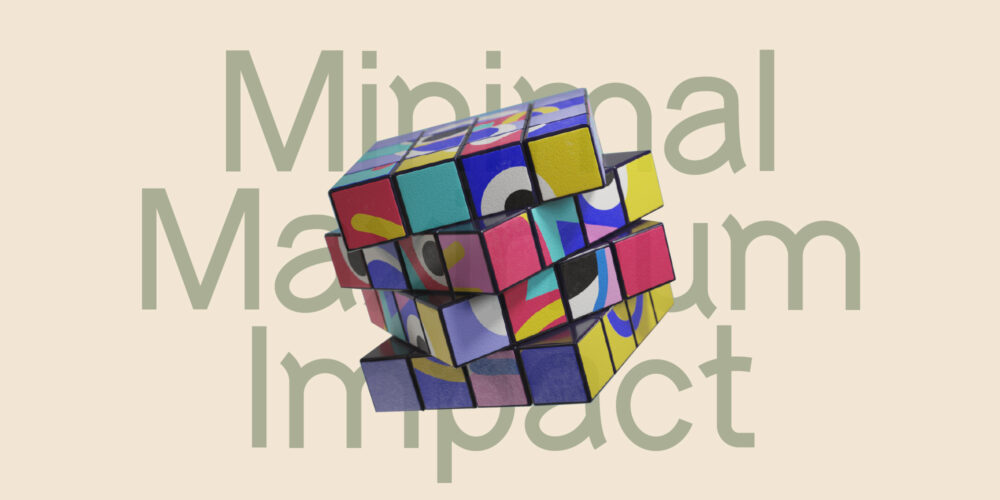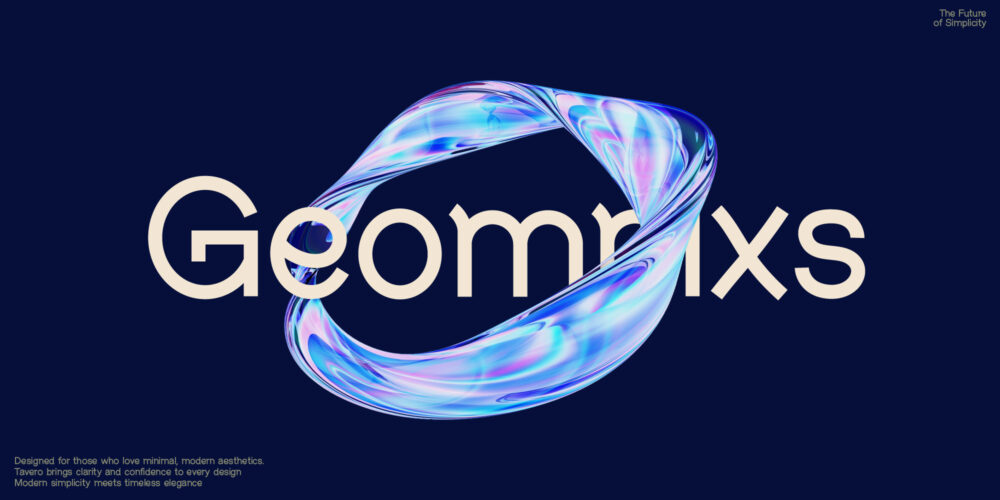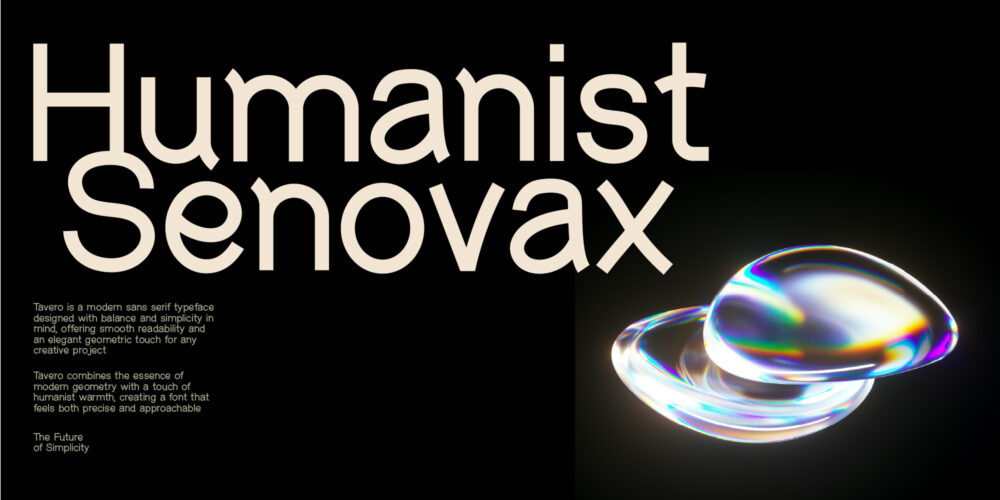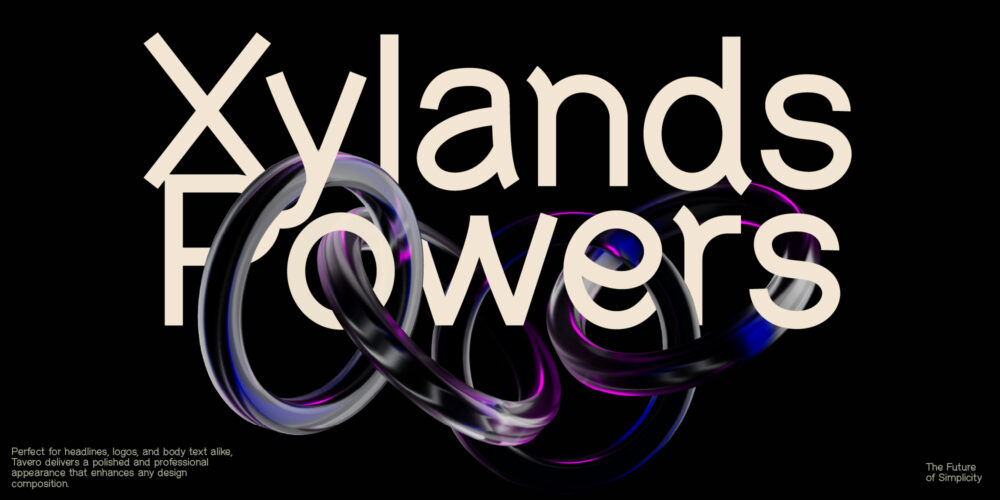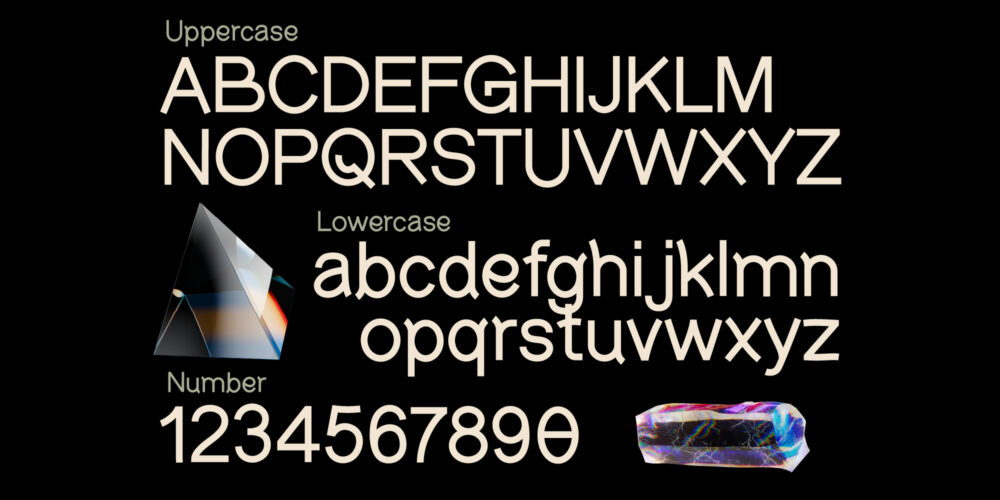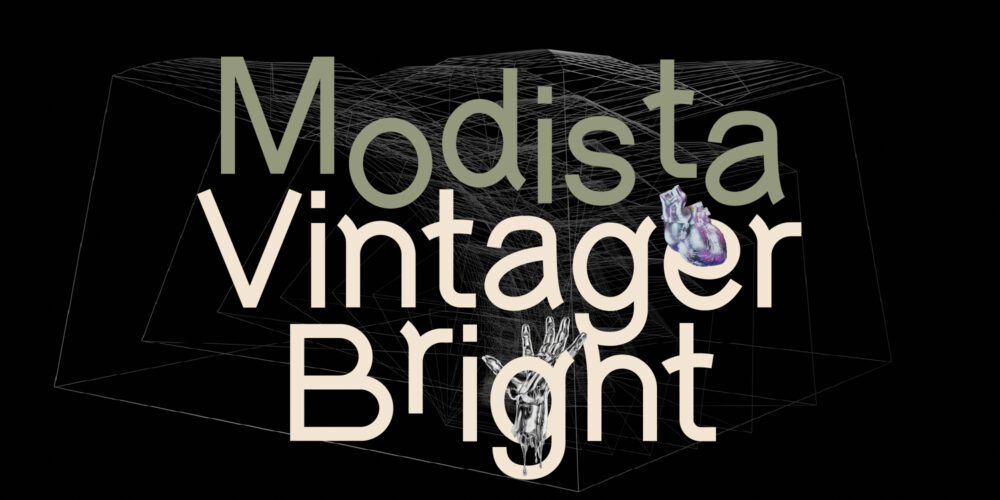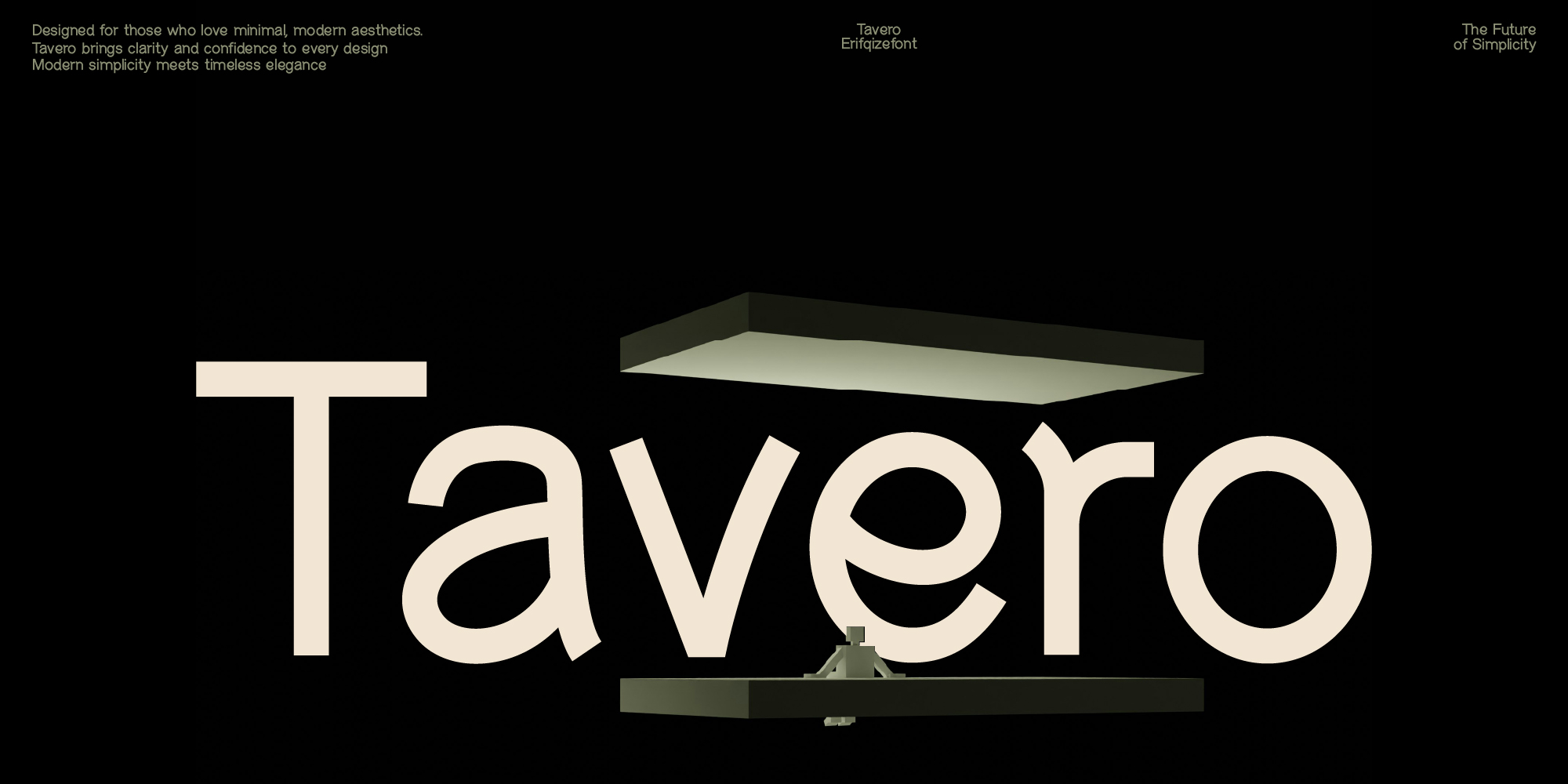
Tavero is a modern sans-serif typeface defined by minimalist geometry and refined proportions. Each letterform is crafted with a perfect balance of simplicity and elegance, evoking a sense of calm precision and futuristic clarity. Tavero brings confidence and sophistication to any design — ideal for branding, digital interfaces, architectural visuals, or editorial layouts.
Designed for those who appreciate the power of restraint, Tavero delivers timeless aesthetics through subtle modernity. Its clean lines and confident curves make it both functional and iconic — a true expression of The Future of Simplicity.
Tavero — Modern simplicity meets timeless elegance.